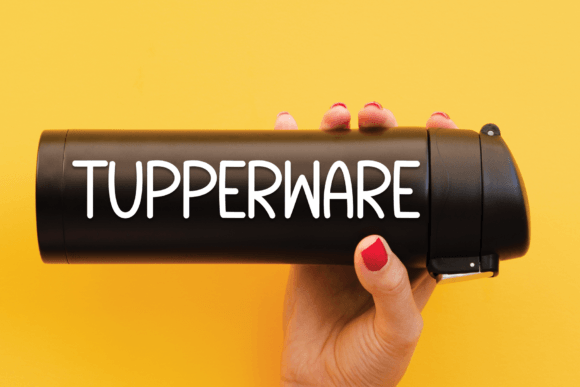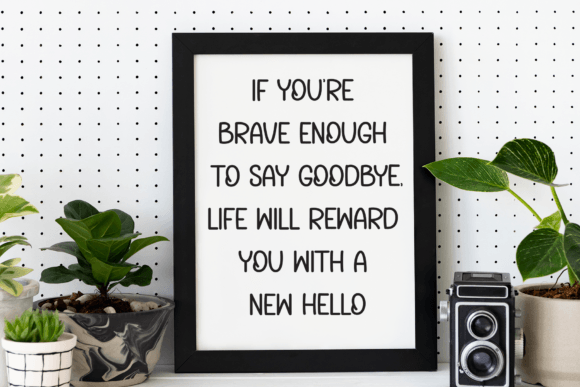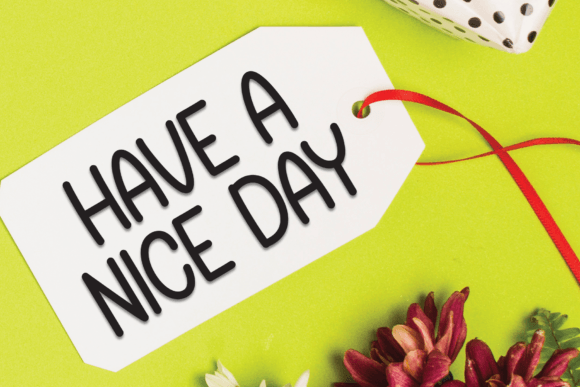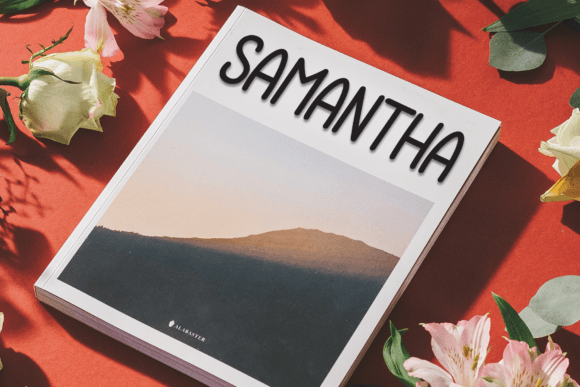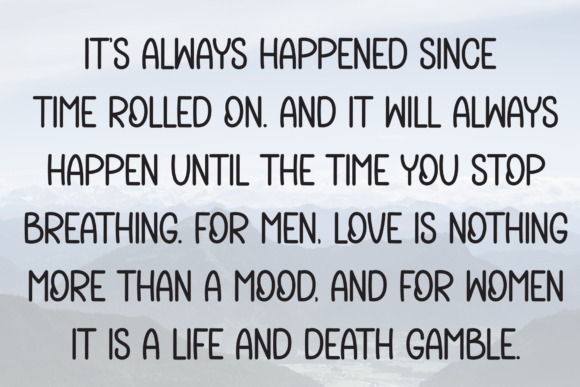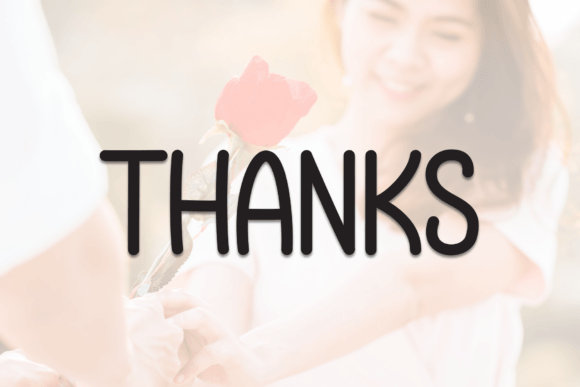
Darling Valentine Font: The Sweetest Addition to Your Design Projects
Are you looking for a font that exudes warmth, playfulness, and romance? Look no further than the Darling Valentine Font, a charming and personable handwritten display font that’s sure to capture the hearts of designers and crafters alike. This delightful typeface is bursting with endless fun and irresistible appeal, making it the perfect match for a wide range of design projects.
A Font that’s Pure Sweetness
Darling Valentine Font is a beautifully crafted handwritten display font that’s designed to add a touch of sweetness to your creations. Its playful and lively strokes are sure to bring a smile to your face, making it the perfect choice for crafting wedding invitations, designing heartfelt cards, or adding a delightfully lively touch to any design project. Whether you’re a designer, crafter, or DIY enthusiast, this font is sure to become your new go-to for all your creative endeavors.
Perfect for Wedding Invitations and More
Darling Valentine Font is particularly well-suited for wedding-related design projects. Its romantic and whimsical feel makes it perfect for crafting beautiful wedding invitations, save-the-date cards, and other wedding stationery. But its uses don’t stop there! This versatile font can also be used for a wide range of other design projects, including:
- Heartfelt cards and gift tags
- Party invitations and decorations
What Sets Darling Valentine Font Apart
So what makes Darling Valentine Font so special? Here are just a few of its standout features:
- Handwritten with love: Darling Valentine Font is a carefully crafted handwritten display font that’s full of personality and charm.
- Playful and lively: This font is bursting with energy and playfulness, making it perfect for adding a fun and lively touch to your designs.
- Romantic and whimsical: Darling Valentine Font has a romantic and whimsical feel that’s perfect for wedding-related design projects and other applications where a touch of sweetness is desired.
- Highly versatile: This font can be used for a wide range of design projects, from digital graphics to print materials.
In conclusion, Darling Valentine Font is a charming and personable handwritten display font that’s sure to capture the hearts of designers and crafters alike. Its playful and lively strokes, romantic and whimsical feel, and high versatility make it the perfect choice for a wide range of design projects. Whether you’re crafting wedding invitations, designing heartfelt cards, or adding a delightfully lively touch to any design project, Darling Valentine Font is the perfect match. So why wait? Indulge in the captivating allure of this typeface and spruce up your creations with a dollop of fun and a sprinkle of charm!